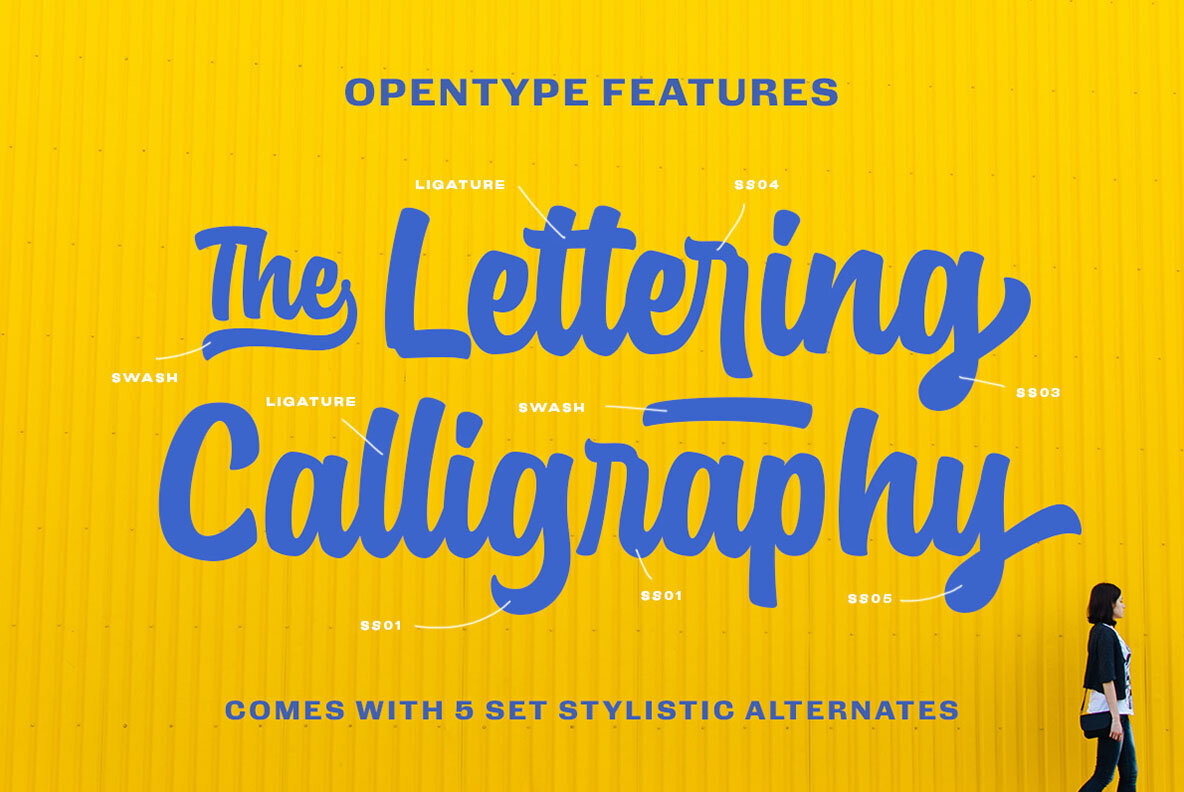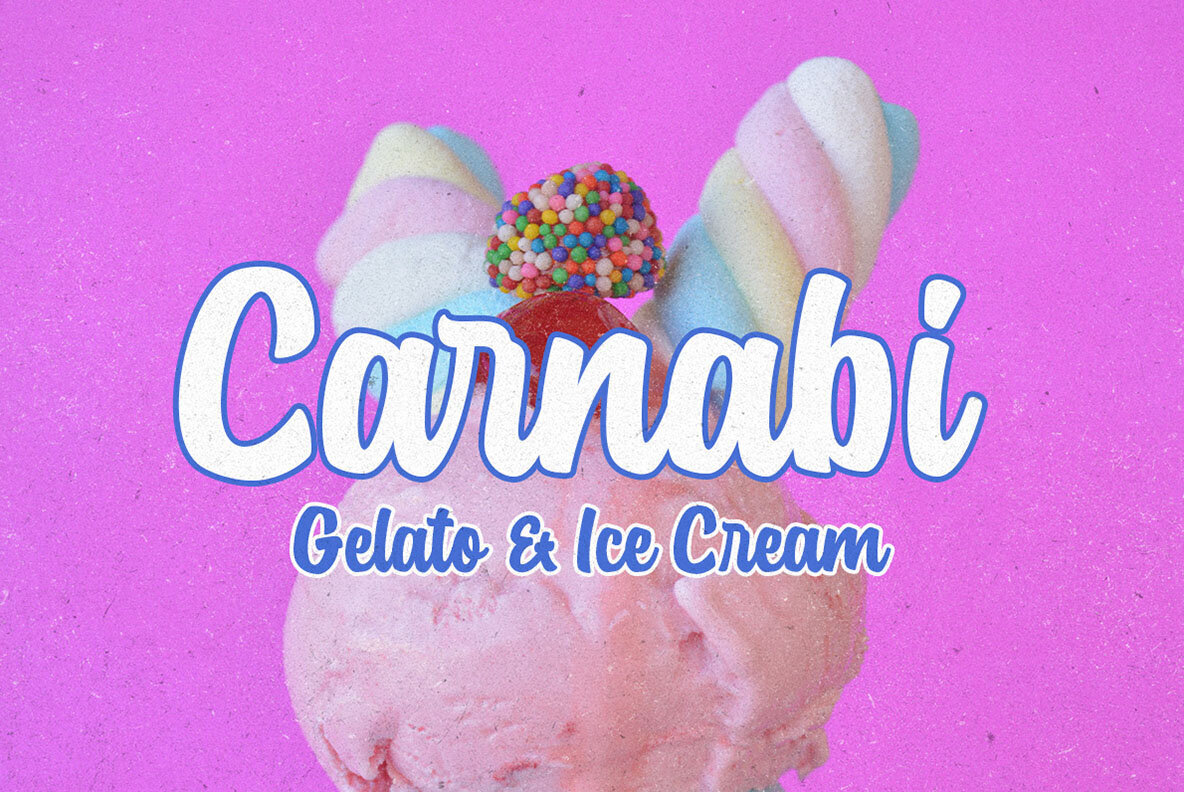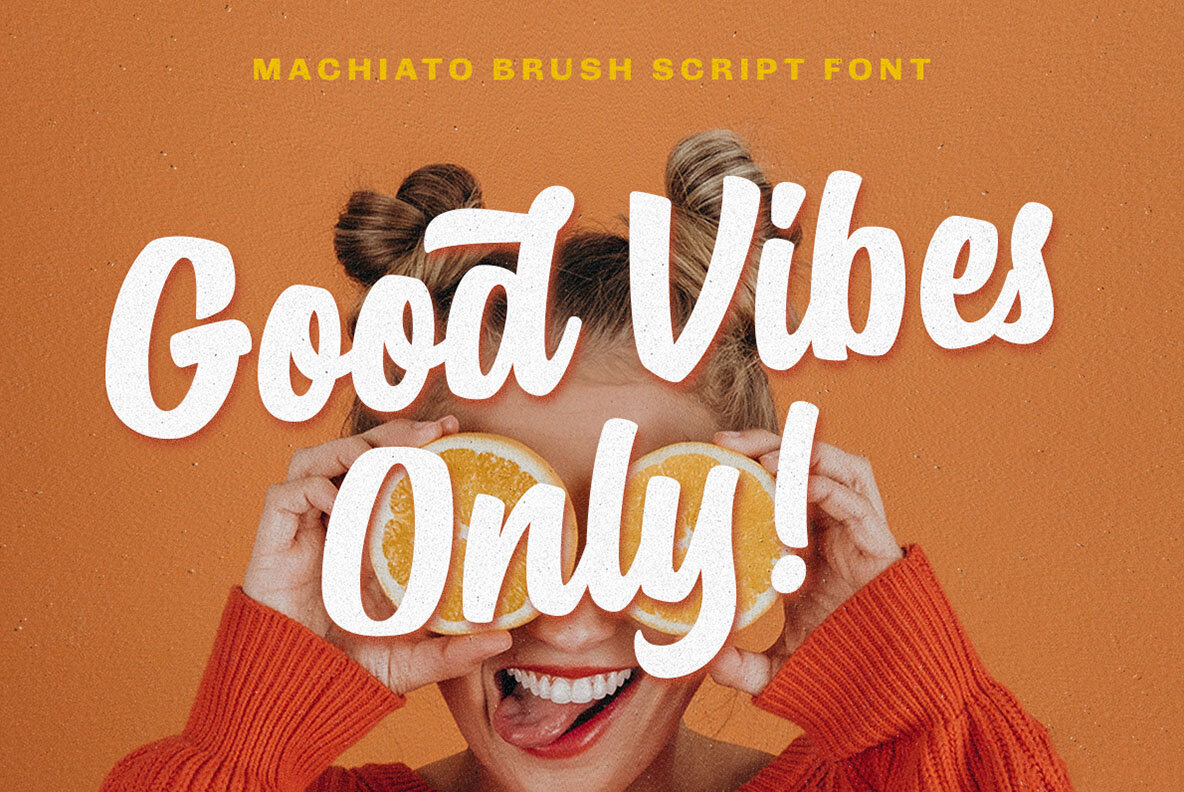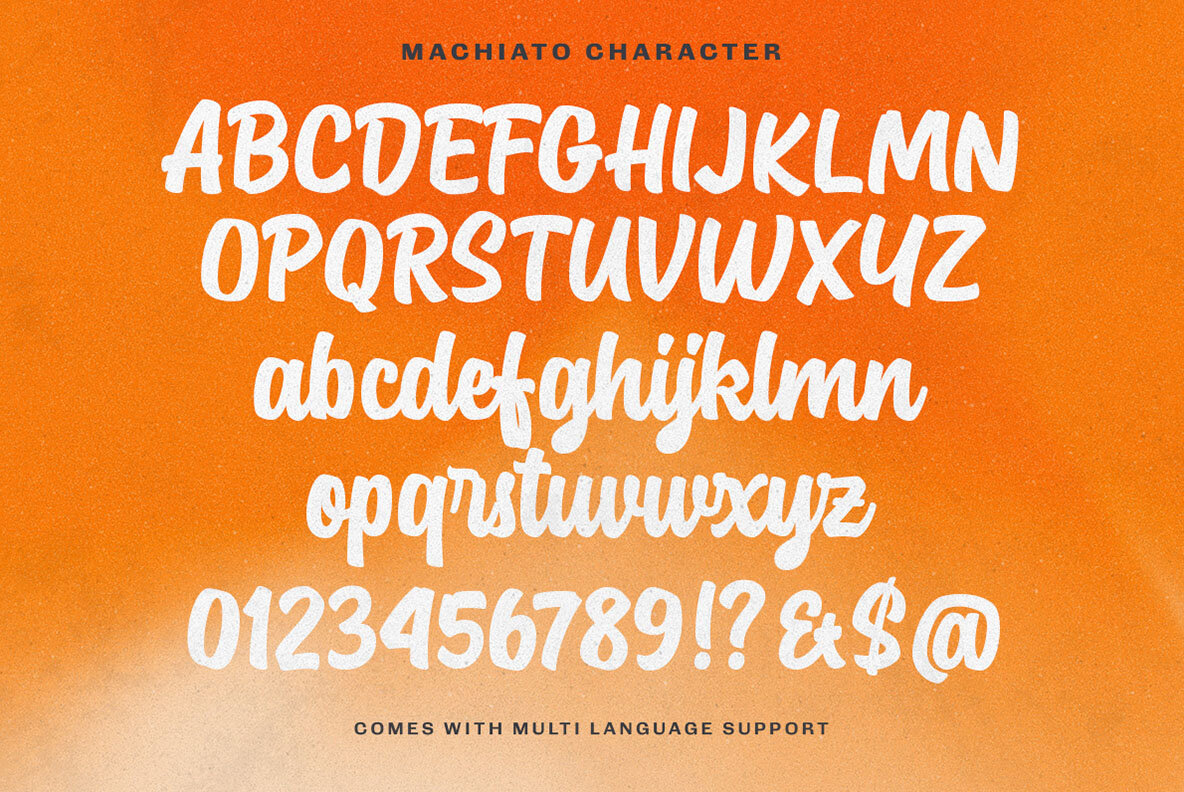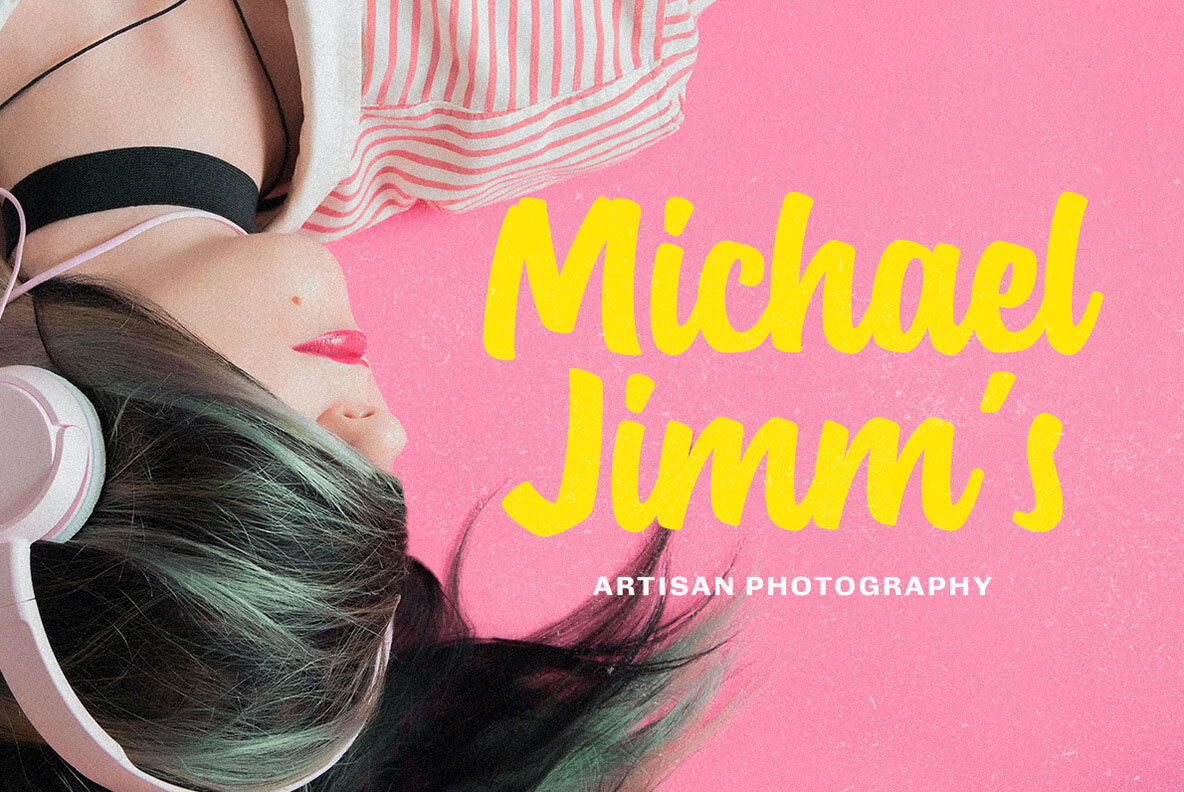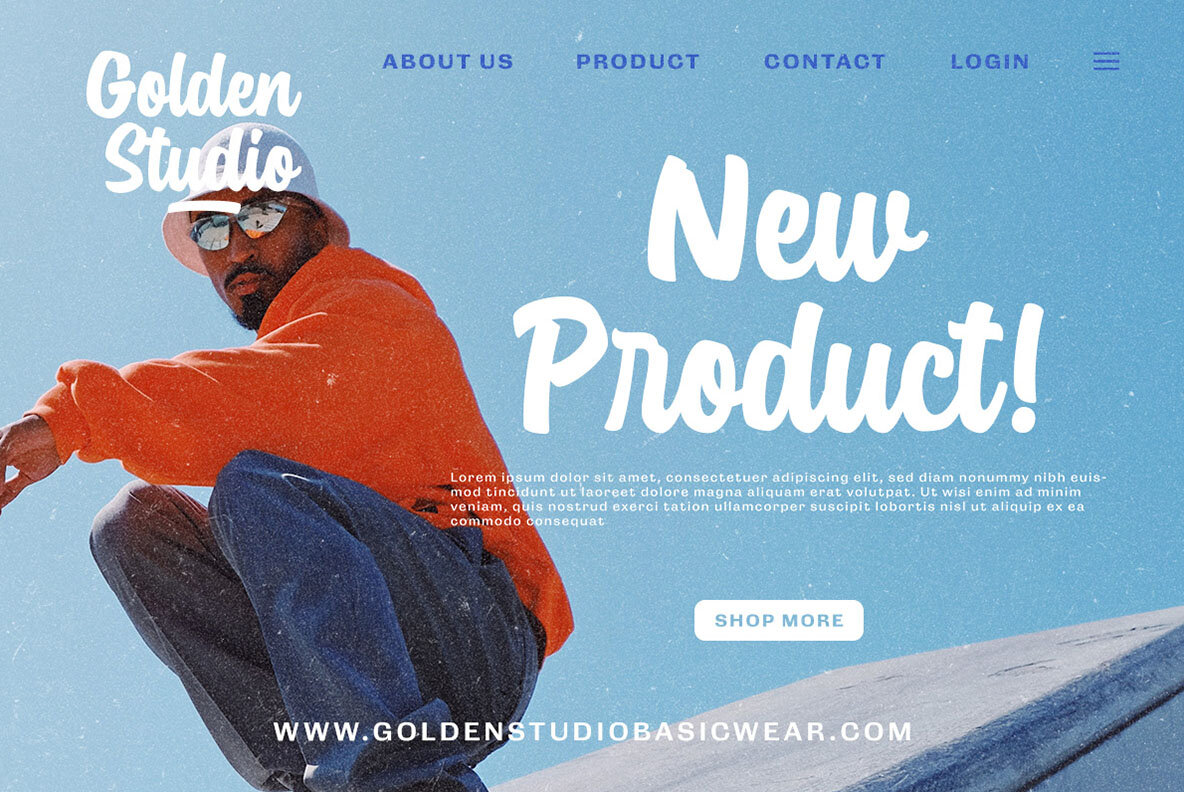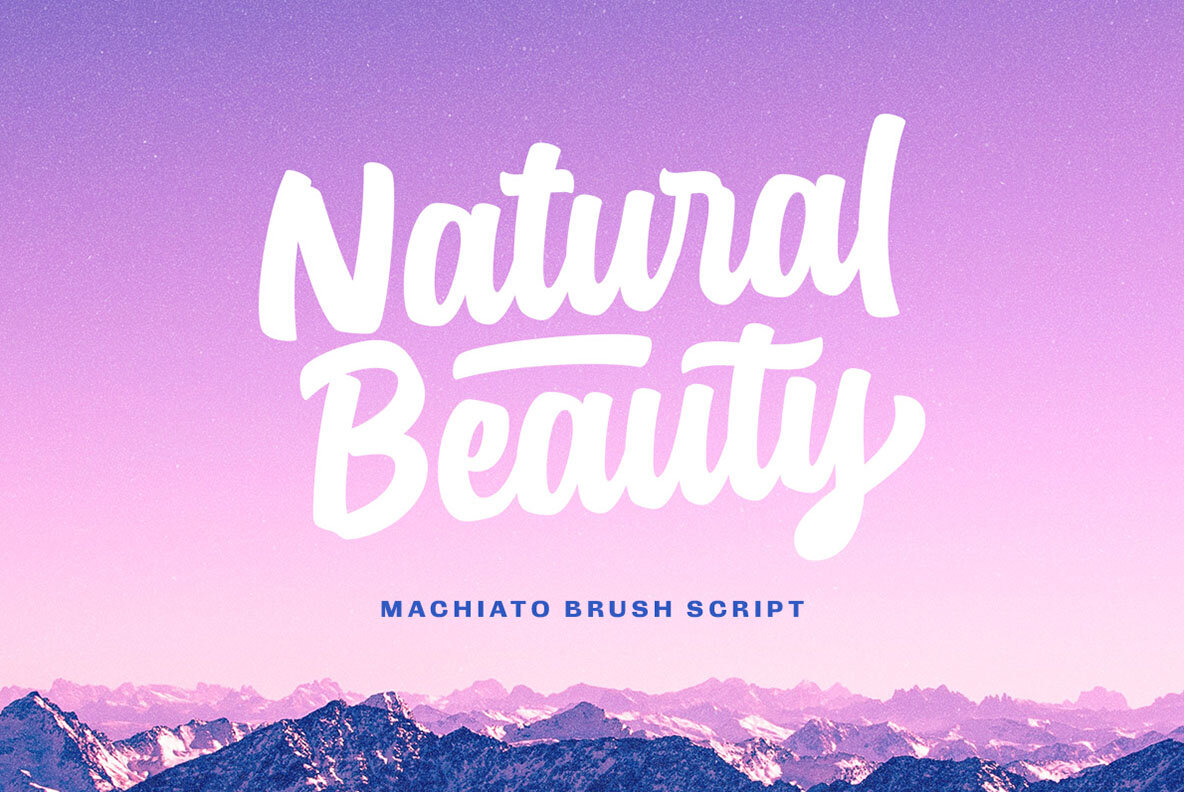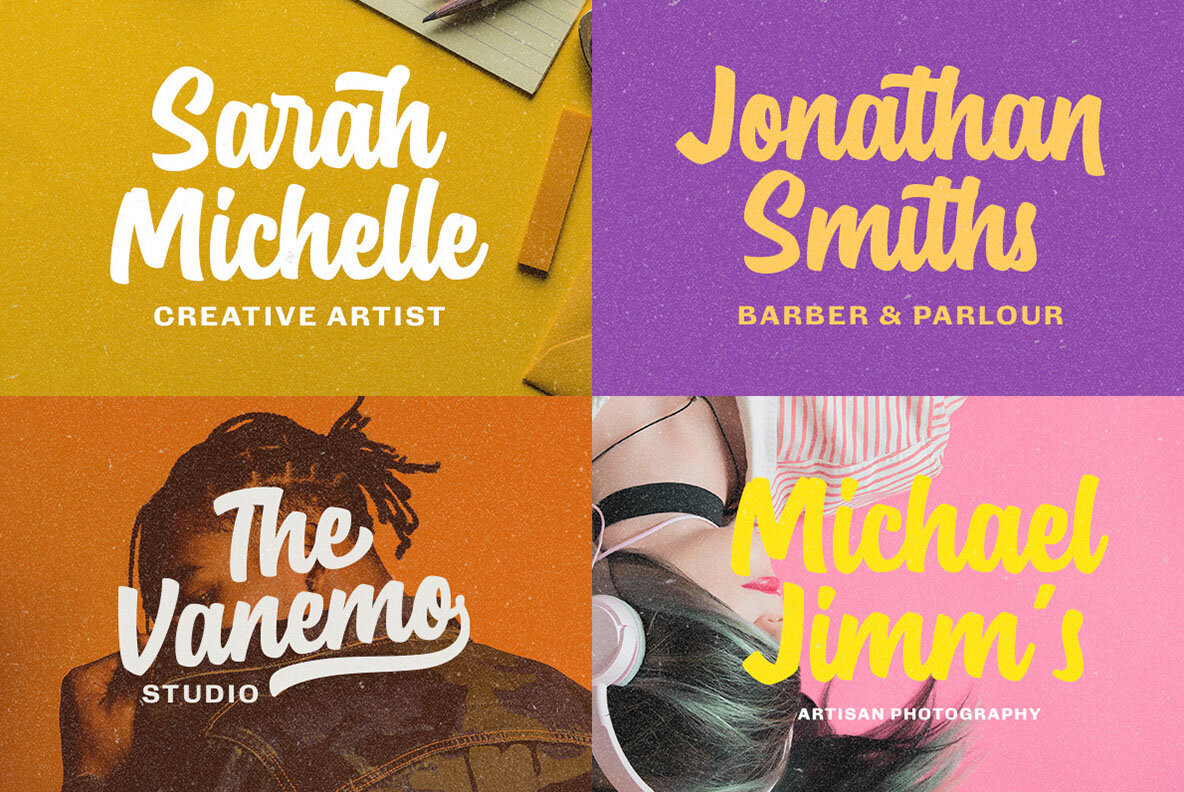
Machianto Font
Machiato Medium
The Machianto font is a dynamic brush script, specifically designed for headlines, displays, and logotypes. It is ideal for formal applications such as invitations, labels, logos, magazines, books, greeting or wedding cards, packaging, fashion, makeup, stationery, novels, and various advertising purposes. We recommend using a program that supports OpenType features and Glyphs panels, such as Adobe apps and Corel Draw, to fully utilize all glyph variations available.Machianto: Bold Brush Script for Impactful Designs